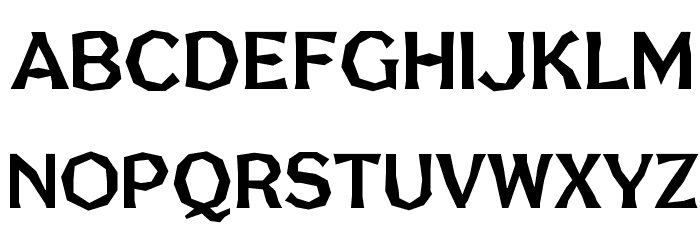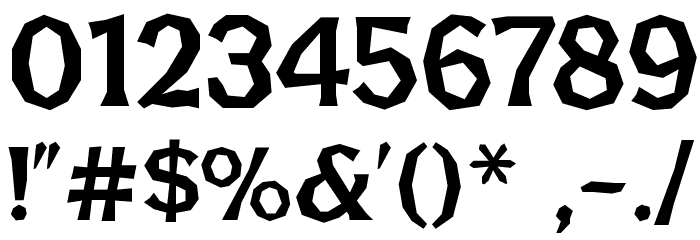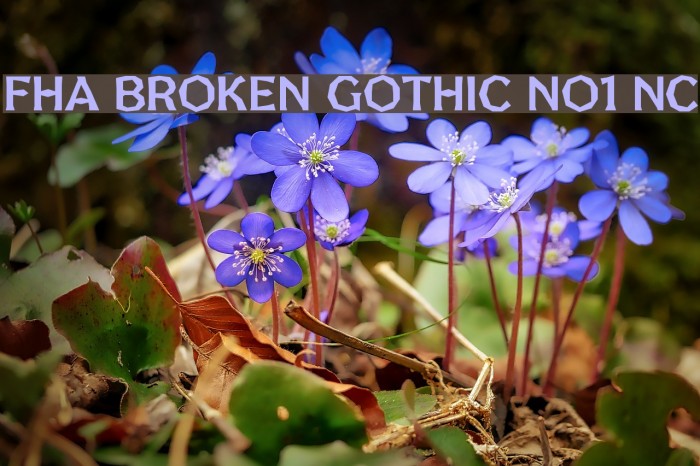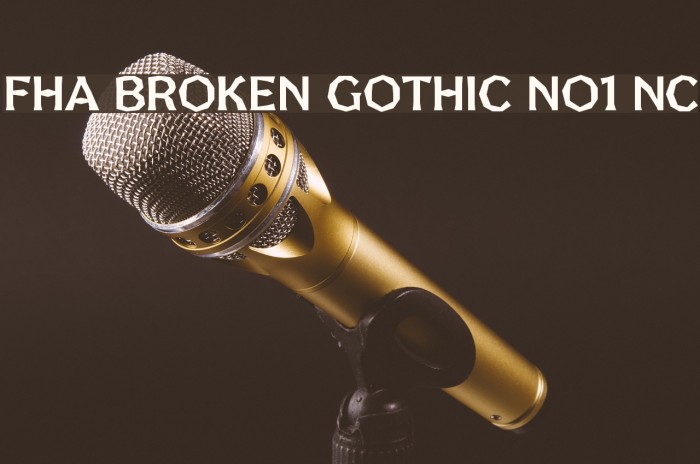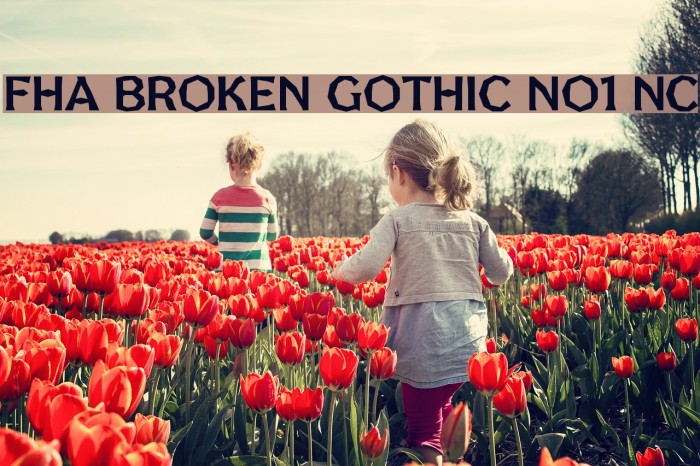
FHA Broken Gothic No1 NC Font
This font features a bold, angular design with a distinct Gothic influence. The characters are sharply defined with a broken, fragmented appearance that gives it a unique, edgy style. The uppercase and lowercase letters maintain a consistent weight, creating a cohesive look across the alphabet. Numbers and special characters follow the same design principles, ensuring uniformity throughout. The font's bold strokes and angular cuts make it stand out, while its structured form provides readability. This combination of characteristics makes it suitable for projects that require a dramatic and impactful visual presence.
A bold, angular Gothic-inspired font with a fragmented, edgy style.
- Proposed Projects: Ideal for posters, album covers, branding, and any project seeking a dramatic, Gothic aesthetic.
- Overall Style: Gothic, Edgy, Dramatic